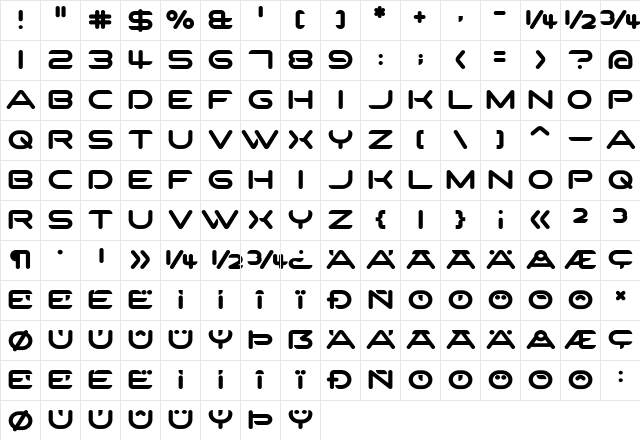
SparTakus Round Regular Free Font
SparTakus Round Regular
Foundry: Peter Wiegel
Designer: Peter Wiegel
Design Context for SparTakus Round
SparTakus Round softens its letterforms with rounded terminals, giving it an approachable, friendly quality that works well in consumer-facing and digital contexts.
Font Pairing: Pairs well with a rounded or humanist sans for body copy, maintaining the friendly tone without relying on SparTakus Round to carry extended reading.
Pro Tip: Use SparTakus Round for UI elements, app interfaces, and anywhere a friendly, approachable tone needs to be maintained without sacrificing clarity.